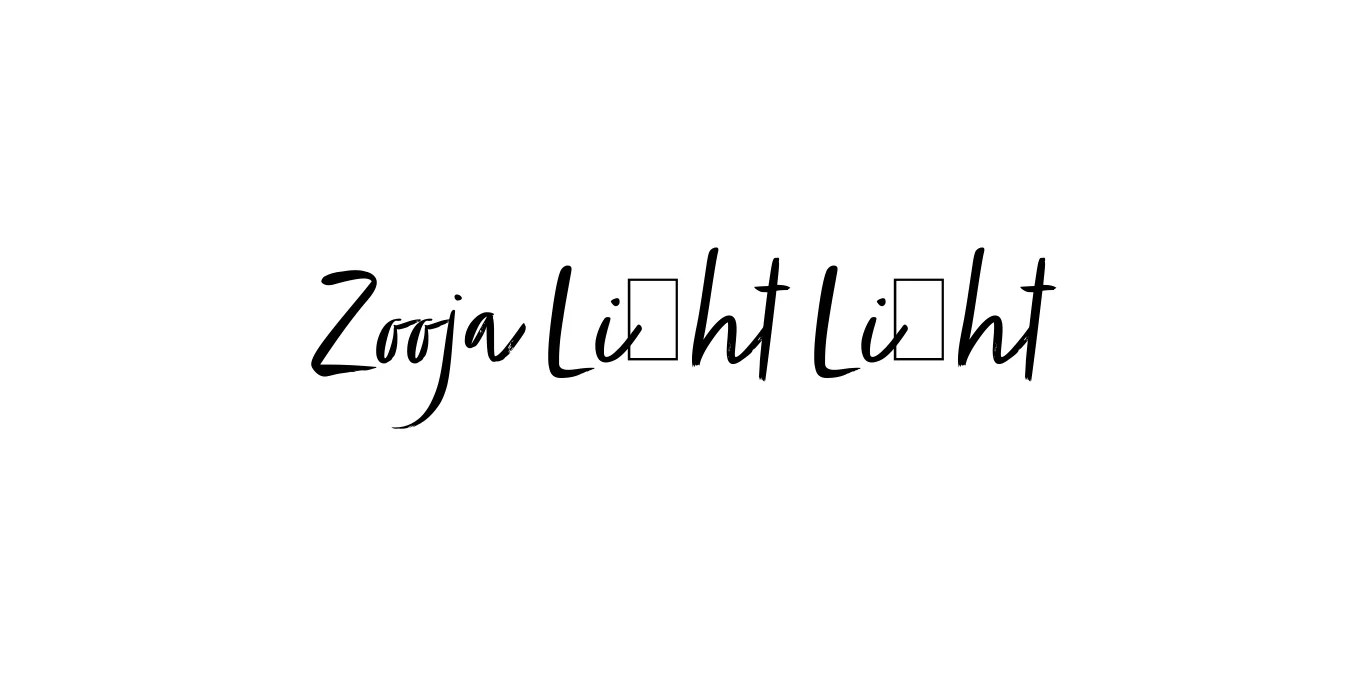
Zooja Light Light
Designed by Emily Conners
| Category | Hand-drawn Script |
| Designer | Emily Conners |
| Similar Fonts | Amatic SC, Handlee, Emily's Candy, Dear Diary |
Zooja Light Light is a charming, hand-lettered typeface designed by Emily Conners of the Emily Lime Design foundry. This font family is celebrated for its organic, whimsical feel that captures the spontaneity of natural handwriting. The Light weight specifically offers a delicate and airy aesthetic, making it stand out in projects that require a touch of elegance combined with a playful, informal spirit.
The font features a unique rhythm with slightly irregular letterforms that mimic true penmanship. Over the years, Zooja has become a favorite among designers for its ability to add a personal and artisanal touch to digital layouts. It is particularly effective when used in creative contexts where a standard, rigid font would feel too sterile or corporate.
Zooja Light Light Best Uses
Ideal for invitations and RSVP cards needing a delicate, personal touch.
Perfect for logos and identity systems for artisanal or handmade brands.
Excellent for quote graphics and playful Instagram stories.
Works well for pull quotes and decorative headers in lifestyle magazines.